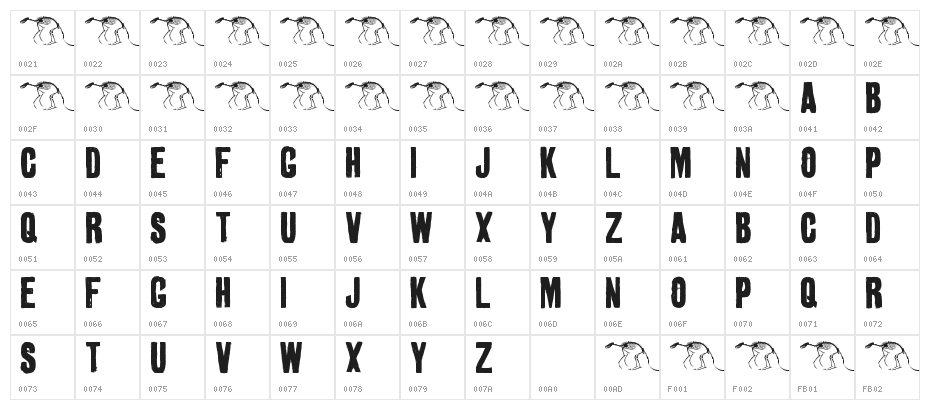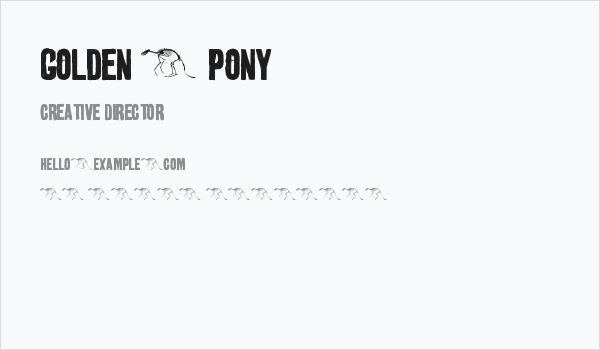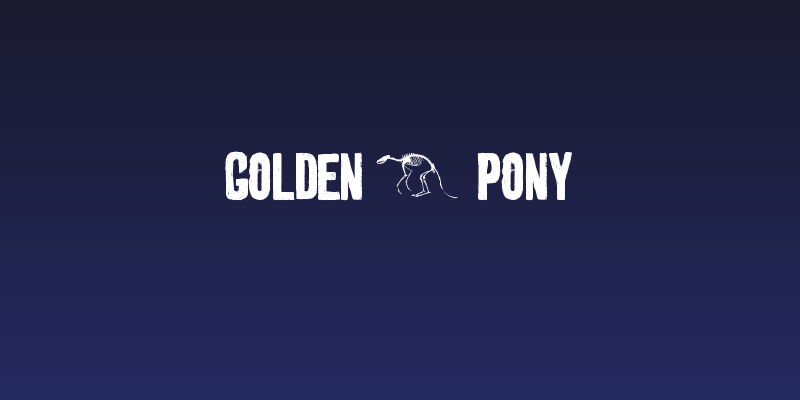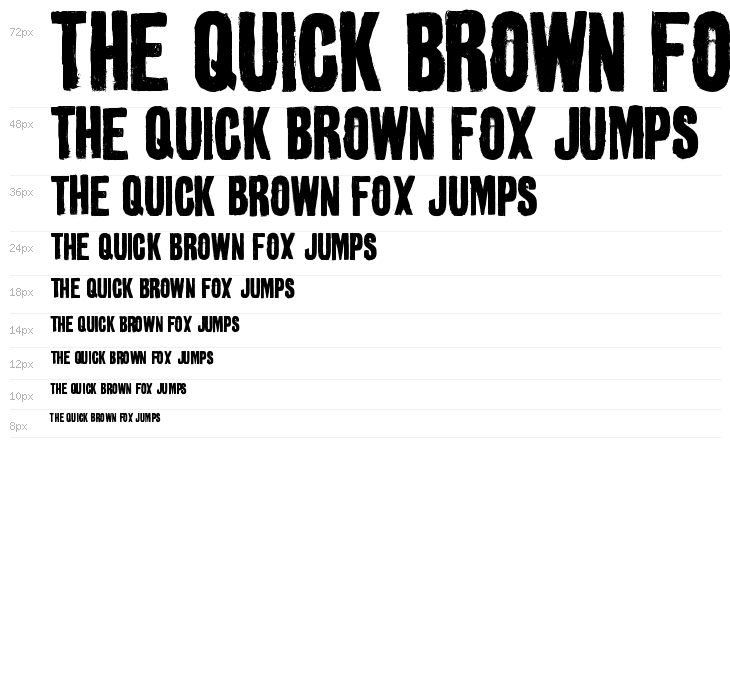
golden 0 pony Font
golden 0 pony Description
This font features a bold, distressed style with a rugged texture that gives it a vintage, handcrafted appearance. The uppercase letters are prominent and impactful, making them ideal for attention-grabbing designs. The characters have a slightly uneven edge, adding to the rustic charm and authenticity. The font's boldness is consistent across all letters, providing a strong visual presence. It is perfect for projects that require a touch of nostalgia or a gritty, organic feel.
Overall StyleVintage
Proposed ProjectsIdeal for posters, branding, packaging, and any design requiring a vintage or rustic aesthetic.